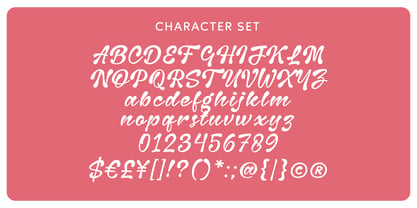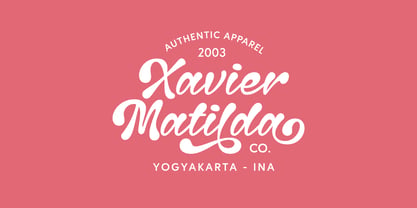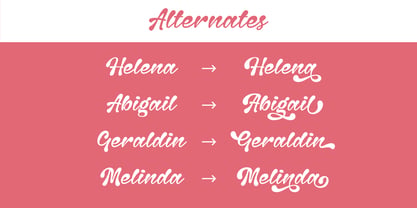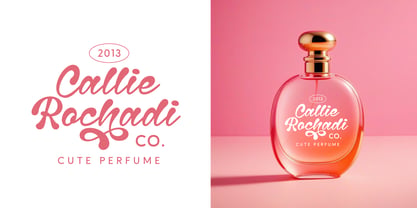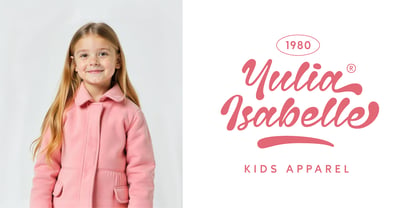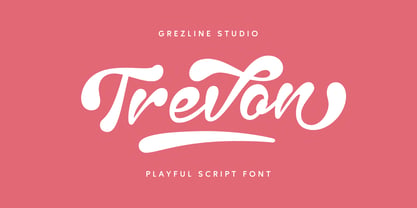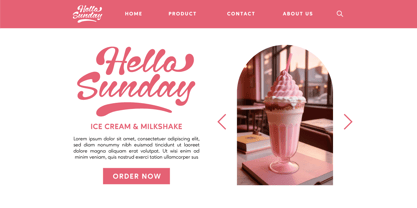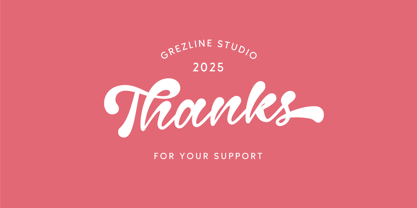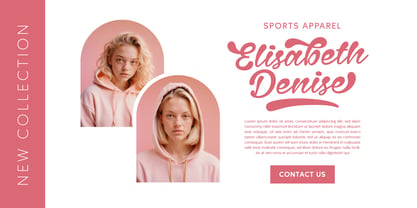
Trevon
by Grezline Studio
The Trevon Font Family was designed by Akhmad Reza Fauzi and published by Grezline Studio. Trevon contains 1 styles. More about this family
Say hello to Trevon font—the happiest, cutest, most kid-friendly font ever created! Designed to turn every word into a smile, this font is perfect for logotype, apparel, invitation and other projects that need a splash of fun. Whether it’s a school poster, a lemonade stand sign, or a secret diary, Trevon font makes business feel like playtime!
- Alternate and Ligature
Designers: Akhmad Reza Fauzi
Foundry: Grezline Studio